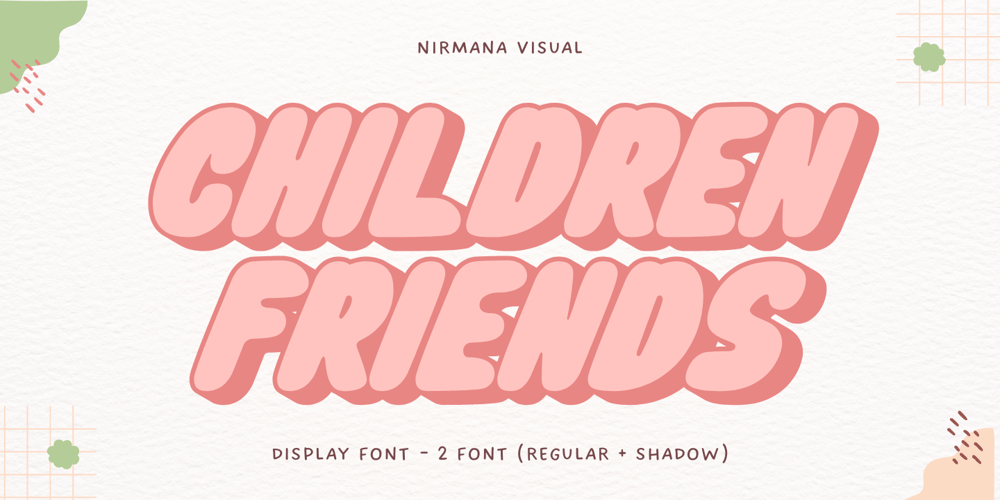
Children Friends Font Family was designed by Sigit Dwipa and published by Nirmana Visual. Children Friends contains 2 styles and family package options. Introducing our playful and whimsical handwritten children font, perfect for bringing joy and imagination to any design project. Our font is the perfect choice for creating fun and engaging designs for children’s books, educational materials, and playful branding projects.With its charming and quirky handwritten style, our font captures the innocence and creativity of childhood, inspiring imagination and wonder. The organic curves and playful details create a sense of spontaneity and fun, making it perfect for designs that need to capture a child’s attention.